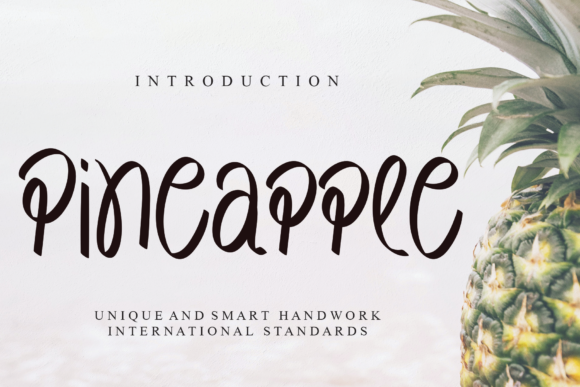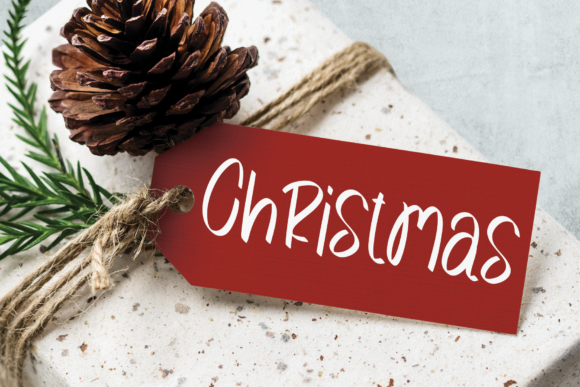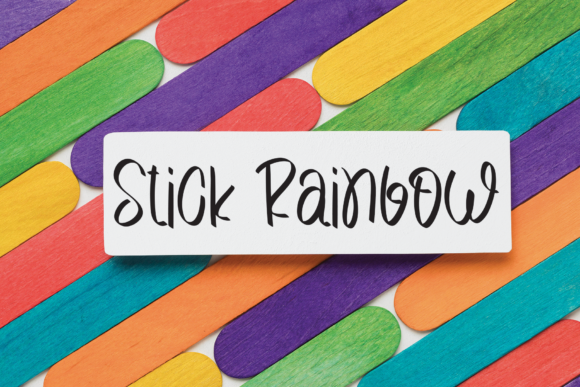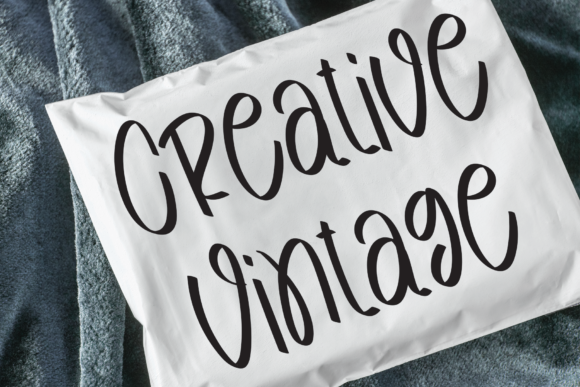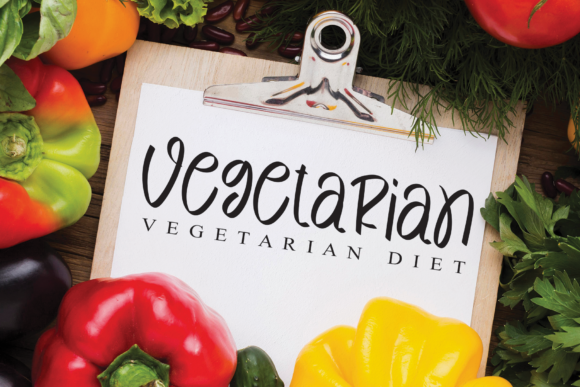
Pineapple Font
About Pineapple Font
PineappleĀ is a sweet, whimsical and flowing script font. Featuring characters that dance along the baseline, this font will add a luxury spark to any design project that you wish to create!